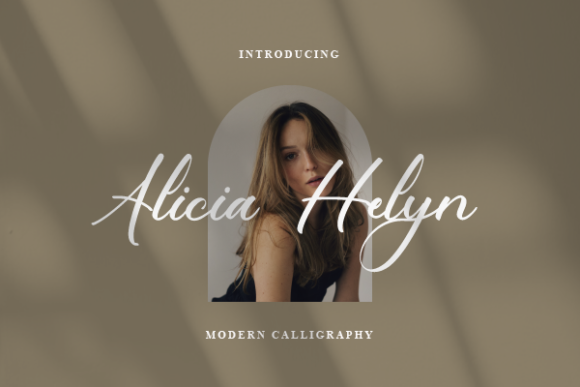
The Perfect Touch: Unlocking the Magic of Alicia Helyn Font
There’s something special about the moment when a design comes together, and all the elements fall into place. The colors, the typography, the textures – everything harmonizes to create a visual masterpiece that takes your breath away. For designers, this moment is what it’s all about, and the right font can make all the difference. That’s where the elegant and flowing Alicia Helyn Font comes in, adding a touch of sophistication and beauty to any design.
Alicia Helyn Font is more than just a font – it’s a way to bring your creative ideas to life. With its delicate and balanced characters, it’s the perfect addition to a wide range of designs, from elegant wedding invitations to modern corporate branding. Whether you’re a seasoned designer or just starting out, Alicia Helyn Font is a valuable tool that can help you create stunning visuals and leave a lasting impression.
Alicia Helyn Font Key Features
- Font Family: Alicia Helyn is a script font designed to resemble handwritten text.
- Character Count: The font includes a wide range of characters, including uppercase and lowercase letters, numbers, and punctuation marks.
- Font Size: Alicia Helyn is available in various font sizes, ranging from 12 to 72 points, making it suitable for both body text and headings.
- Resolution: The font is designed for use at high resolutions, making it ideal for digital applications such as websites, social media, and digital publications.
- Unique Characteristics: Alicia Helyn features a unique, cursive script design with subtle flourishes and connecting strokes, giving it a personal and elegant touch.
Alicia Helyn Font Review
As a designer, I’ve had the chance to work with many fonts, but Alicia Helyn caught my eye with its unique blend of elegance and modernity. Here’s what I think:
- Refined aesthetics: Alicia Helyn exudes sophistication and refinement, making it perfect for high-end branding and marketing materials.
- Versatility: It’s available in multiple weights, from light to bold, allowing for a wide range of creative applications.
- Legibility: Despite its elegant appearance, Alicia Helyn remains highly legible, making it suitable for body text as well as headings.
- Limited support: Alicia Helyn may not be available on all operating systems or devices, which could be a concern for designers who need to ensure cross-platform compatibility.
- May not be suitable for very small text: While Alicia Helyn is legible, it’s not the best choice for very small text sizes, where the lines may become too thin.
Alicia Helyn is a solid choice for designers looking to add a touch of sophistication to their projects. While it may have some limitations, its refined aesthetics and versatility make it a great option for a wide range of applications.
Tip: Use Alicia Helyn Font for headings and titles to add a touch of elegance and sophistication to your design.
Tip: Use Alicia Helyn Font to create a consistent brand identity across your designs.
Tip: Use Alicia Helyn Font to add a touch of professionalism and polish to your presentations and documents.
Alicia Helyn Font is ideal for:
- Branding and identity design
Alternatives to Alicia Helyn Font
Great Vibes is a modern, elegant script font suitable for wedding invitations, greeting cards, and other creative projects. It has a more fluid and dynamic feel compared to Alicia Helyn Font, which makes it perfect for designs that require a sense of movement and energy.
Comparison to Alicia Helyn Font: Great Vibes has a more cursive and flowing feel, while Alicia Helyn Font has a more refined and sophisticated look. Great Vibes is ideal for designs that need a playful touch, while Alicia Helyn Font is better suited for more formal projects.
Carolyna Pro is a luxurious, elegant script font that exudes sophistication and glamour. It’s perfect for high-end branding, luxury packaging, and other premium projects. Like Alicia Helyn Font, Carolyna Pro has a refined and sophisticated look, but it’s more dramatic and eye-catching.
Q: Is Alicia Helyn compatible with right-to-left languages?
Alicia Helyn is designed to be compatible with right-to-left languages, including Arabic, Hebrew, and Persian. The font includes the necessary Unicode characters and OpenType features to support these languages. However, please note that some languages may require additional font settings or adjustments to display correctly.